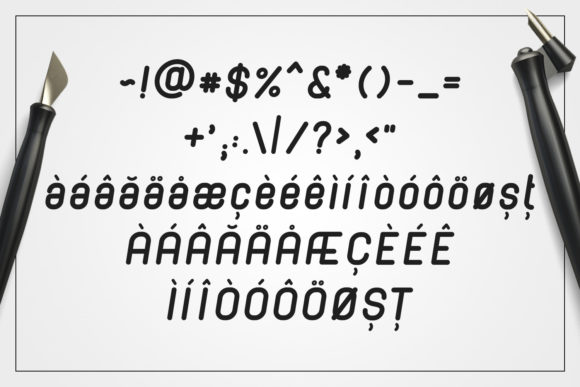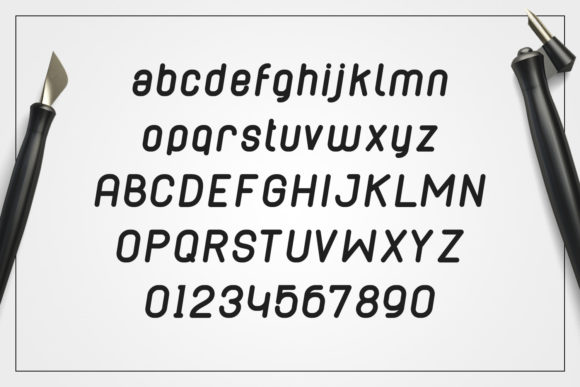
Have you ever stared at a blank screen, waiting for inspiration to strike? The cursor blinks impatiently, and your mind is a blank slate. But then, it happens – a spark of creativity ignites, and your design begins to take shape. The right font can make all the difference, elevating your work from ordinary to extraordinary.
Enter the Cabo Rounded Bold Italic Font, a clean and adaptable sans serif font that’s perfect for a wide range of designs. Whether you’re working on a logo, brochure, or website, this font is sure to deliver. Its neat and simple style makes it a valuable addition to any designer’s toolkit, and its versatility means it can be used in countless contexts.
With its unique blend of elegance and approachability, the Cabo Rounded Bold Italic Font is a must-have for any designer looking to add some flair to their work.
- Unique Characteristics: Distinctive rounded edges, bold weight, and italic slant give the font a modern and sophisticated look
Cabo Rounded Bold Italic Font Review
Overall, I found the Cabo Rounded Bold Italic Font to be a solid choice for a variety of design projects. Here are some things that stood out to me: ✨
- The font’s rounded edges and bold weight make it a great choice for modern branding and marketing materials.
- The italic variant adds a touch of sophistication and elegance to the design.
- The font’s high legibility makes it a great choice for body text, even at smaller font sizes.
However, there are a few limitations to keep in mind: ⚠️
- The font may be too bold for some designs, and could potentially overpower other visual elements.
- The rounded edges can make the font feel a bit too playful for more formal or professional projects.
- The font’s italic variant may not be suitable for all languages, due to its unique design.
Overall, I would recommend the Cabo Rounded Bold Italic Font for modern, creative projects that require a touch of sophistication and elegance. However, it may not be the best choice for more formal or professional designs.
Tips for Getting the Most Out of Cabo Rounded Bold Italic Font
Use Cabo Rounded Bold Italic font for headings and titles to add a touch of sophistication and elegance to your design.
Combine Cabo Rounded Bold Italic font with other fonts to create a unique and visually appealing typography.
Experiment with different font sizes and colors to create contrast and visual interest.
Alternatives to Cabo Rounded Bold Italic Font
1. Montserrat Bold Italic
Montserrat Bold Italic is a modern sans-serif font with geometric shapes. It is ideal for use in digital products, such as mobile apps, websites, and video games. Montserrat Bold Italic has a similar rounded feel to Cabo Rounded Bold Italic, but with a more geometric and modern aesthetic.
Comparison: Montserrat Bold Italic is more geometric and modern compared to Cabo Rounded Bold Italic, making it a better choice for digital products. However, Cabo Rounded Bold Italic has a softer, more rounded feel that may be more suitable for certain branding or design projects.
2. Open Sans Bold Italic
Open Sans Bold Italic is a clean and legible sans-serif font. It is suitable for use in body text, headings, and titles. Open Sans Bold Italic has a similar clean and simple aesthetic to Cabo Rounded Bold Italic, but with a more straightforward and sans-serif design.